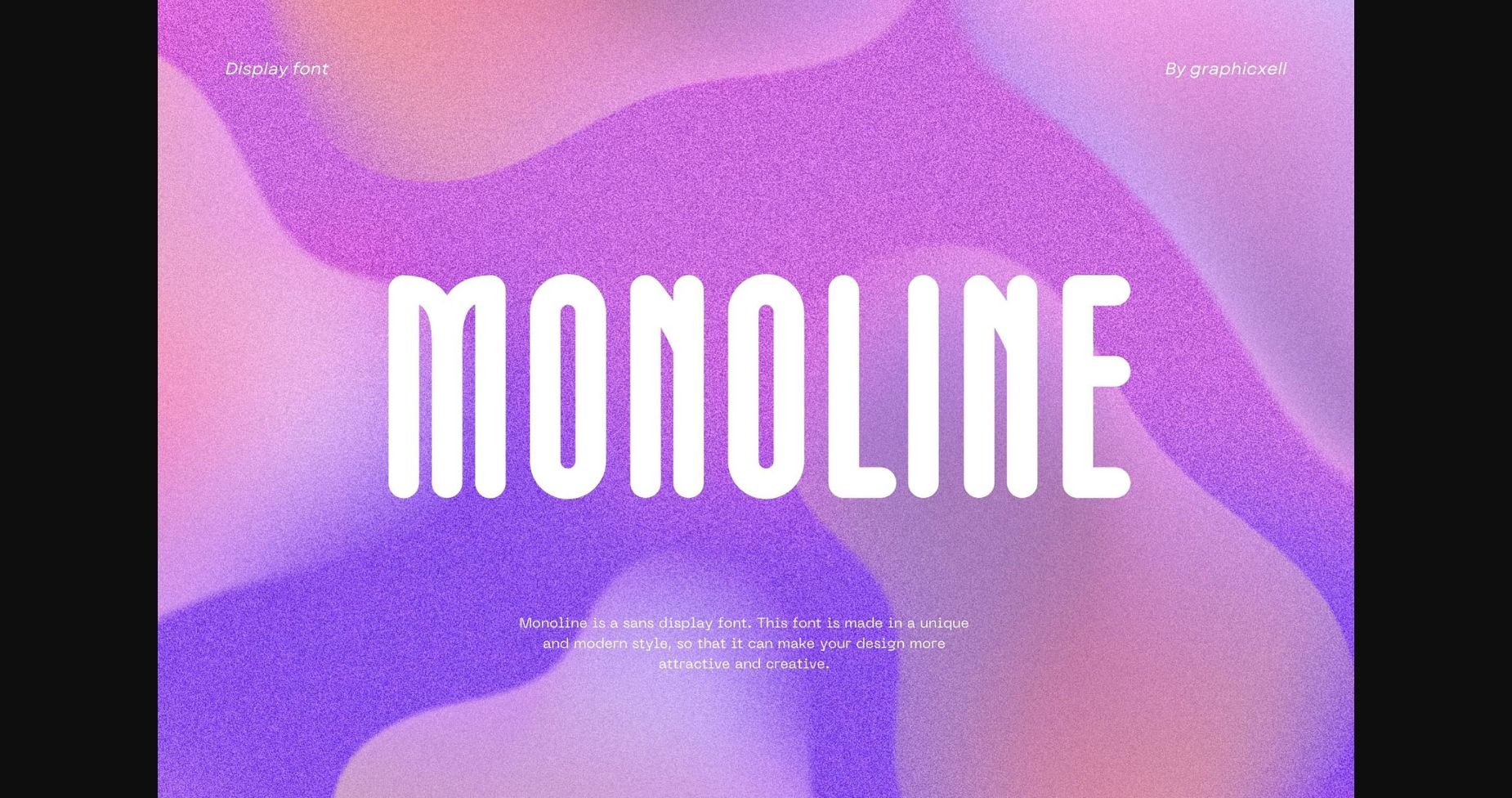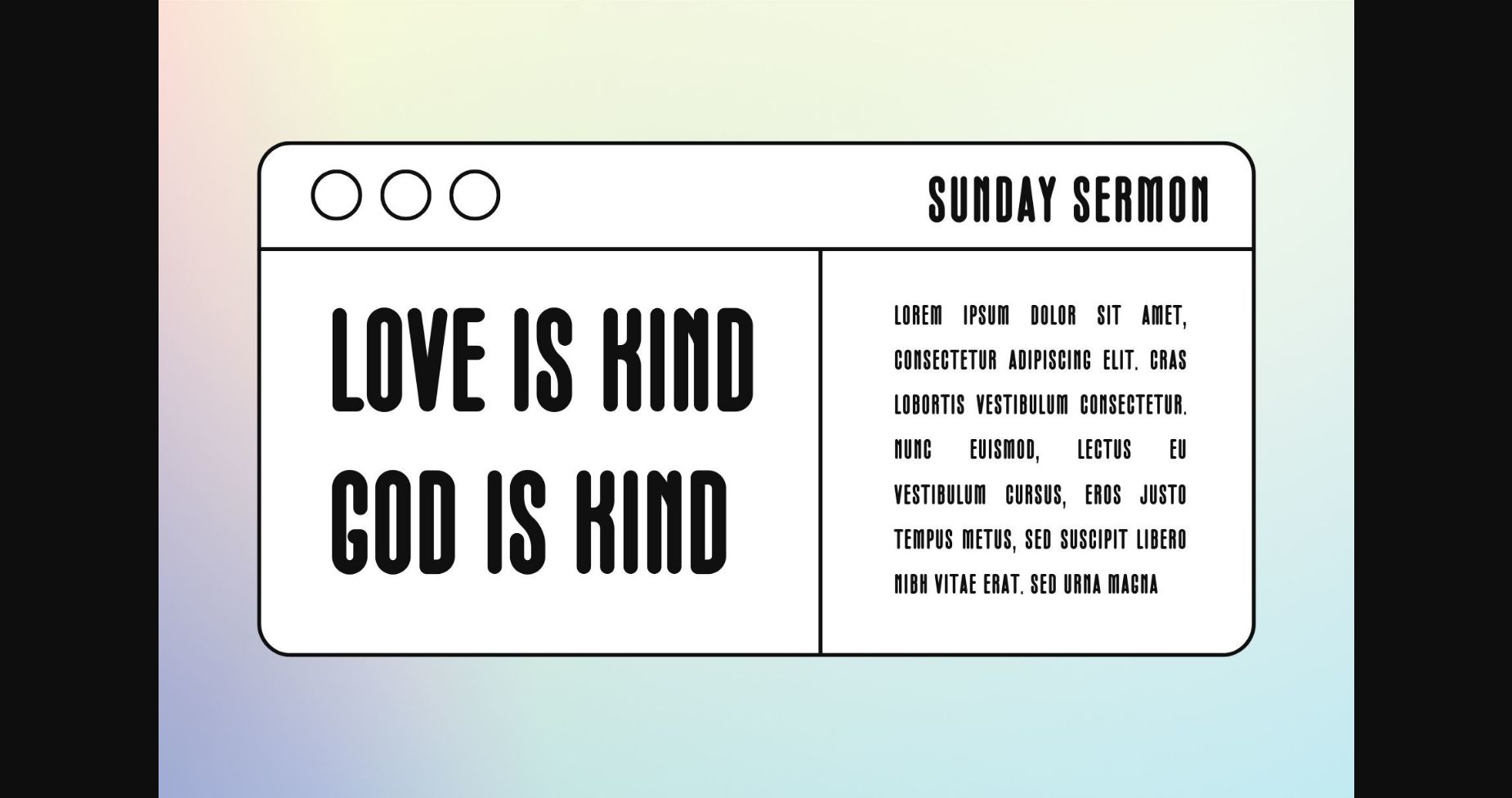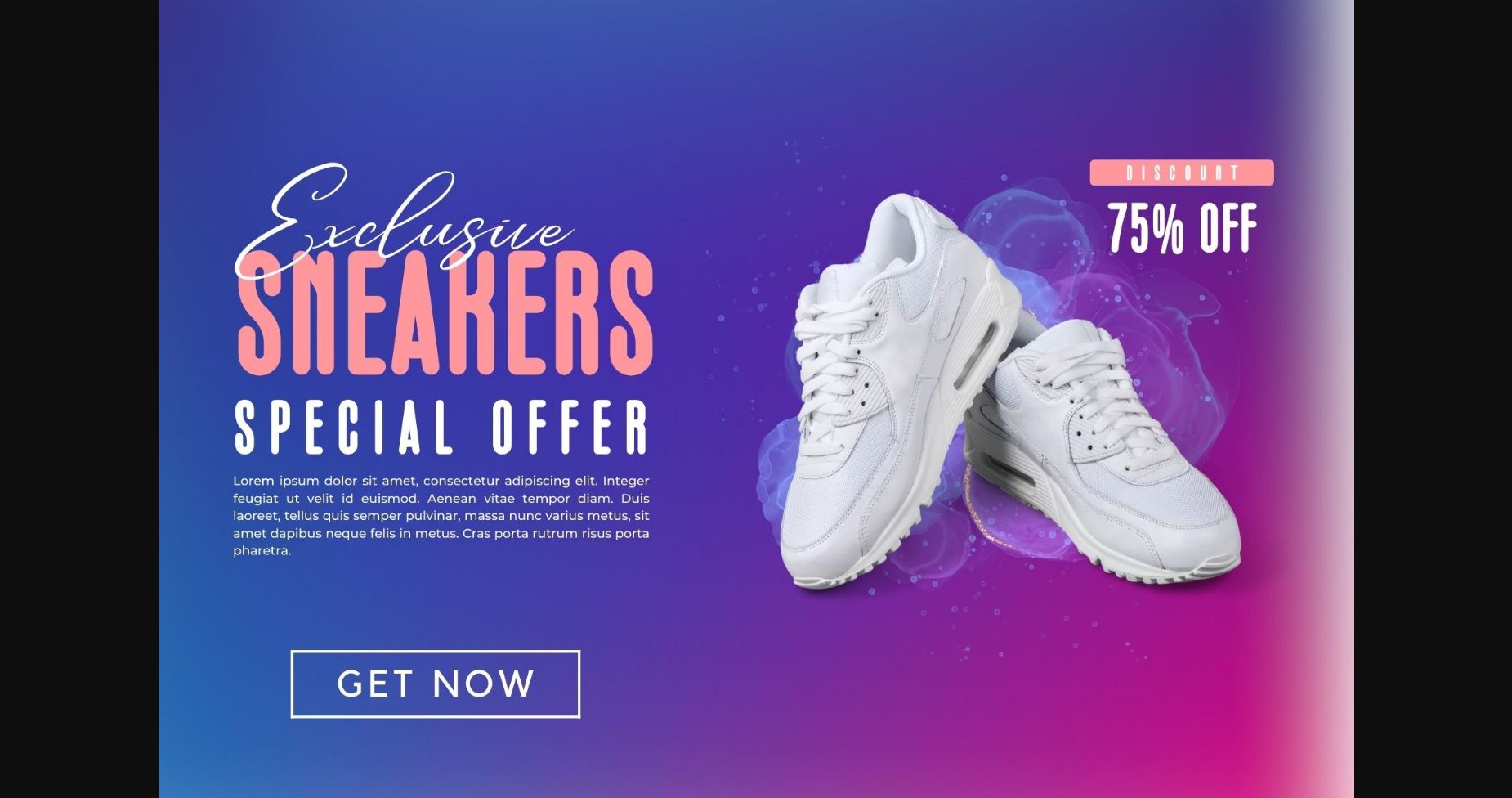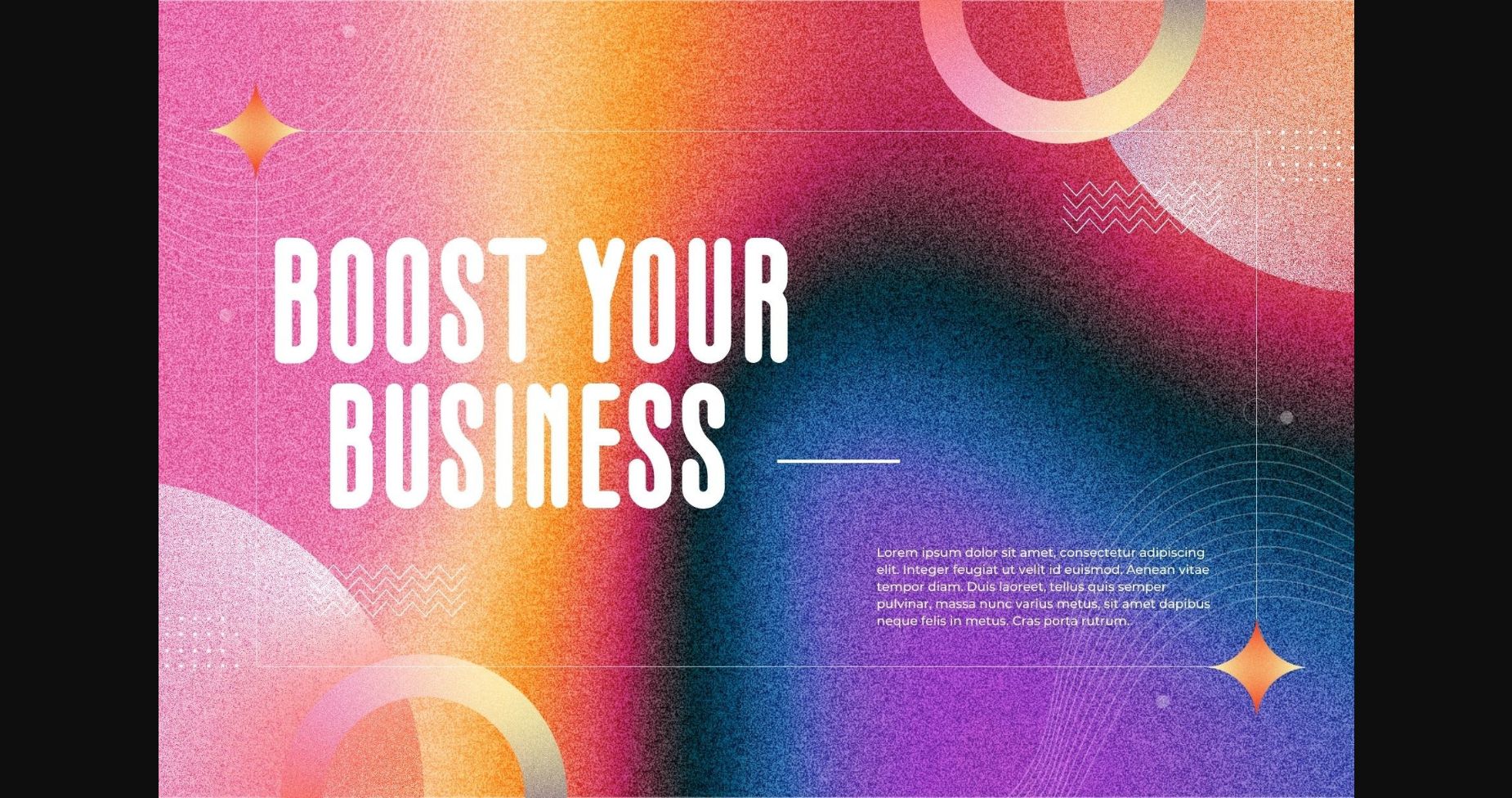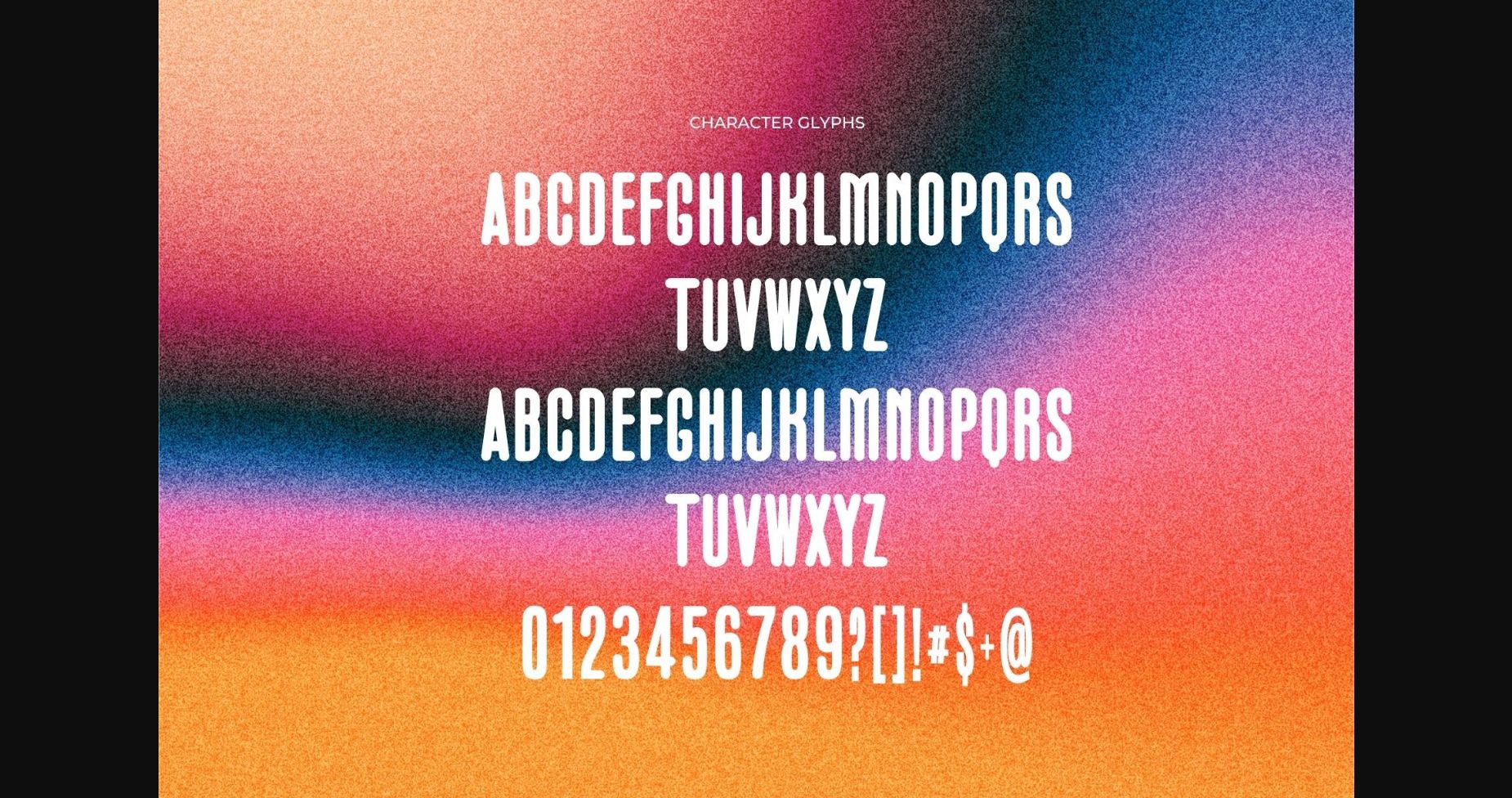
HomeSans Serif FontsMonoline Font Sans Serif Fonts Monoline Font FacebookXPinterestWhatsApp 1 of 8 ... Monoline Font Poster 2... Monoline Font Poster 3... Monoline Font Poster 4... Monoline Font Poster 5... Monoline Font Poster 6... Monoline Font Poster 7... Monoline Font Poster 8... About Monoline Font Monoline is a sans display font. It is made in a unique and modern style so it can make your design more attractive and creative. DOWNLOAD NOW People also explored Written Font Darkloose Font Folewer Font Better Grade Font Winter Sunday Font Think Font Pulcinela Font Whinda Bright Font Me Amanda Font 353 0 TagsMonoline Font Previous articleQuickly Exquisite FontNext articleSartica Font LEAVE A REPLY Cancel reply Comment: Please enter your comment! Name:* Please enter your name here Email:* You have entered an incorrect email address! Please enter your email address here Website: Save my name, email, and website in this browser for the next time I comment. Personal Use Free Lanilla Personal Use Free Read more about this font Velasco Personal Use Free Read more about this font Rollayka Personal Use Free Read more about this font Royal Bengal Tiger Personal Use Free Read more about this font BLOG Elegant Wedding Invitation Fonts – Handwritten & Script Fonts Elegant Wedding Invitation Fonts Your wedding day is one of the most important moments of your life, and every detail matters—including your invitation design. Our... Best Fonts for YouTube Videos: Make Your Thumbnails Stand Out Modern Sans-Serif Fonts That Brands Love in 2025 Where to Buy American Fonts Online in 2024